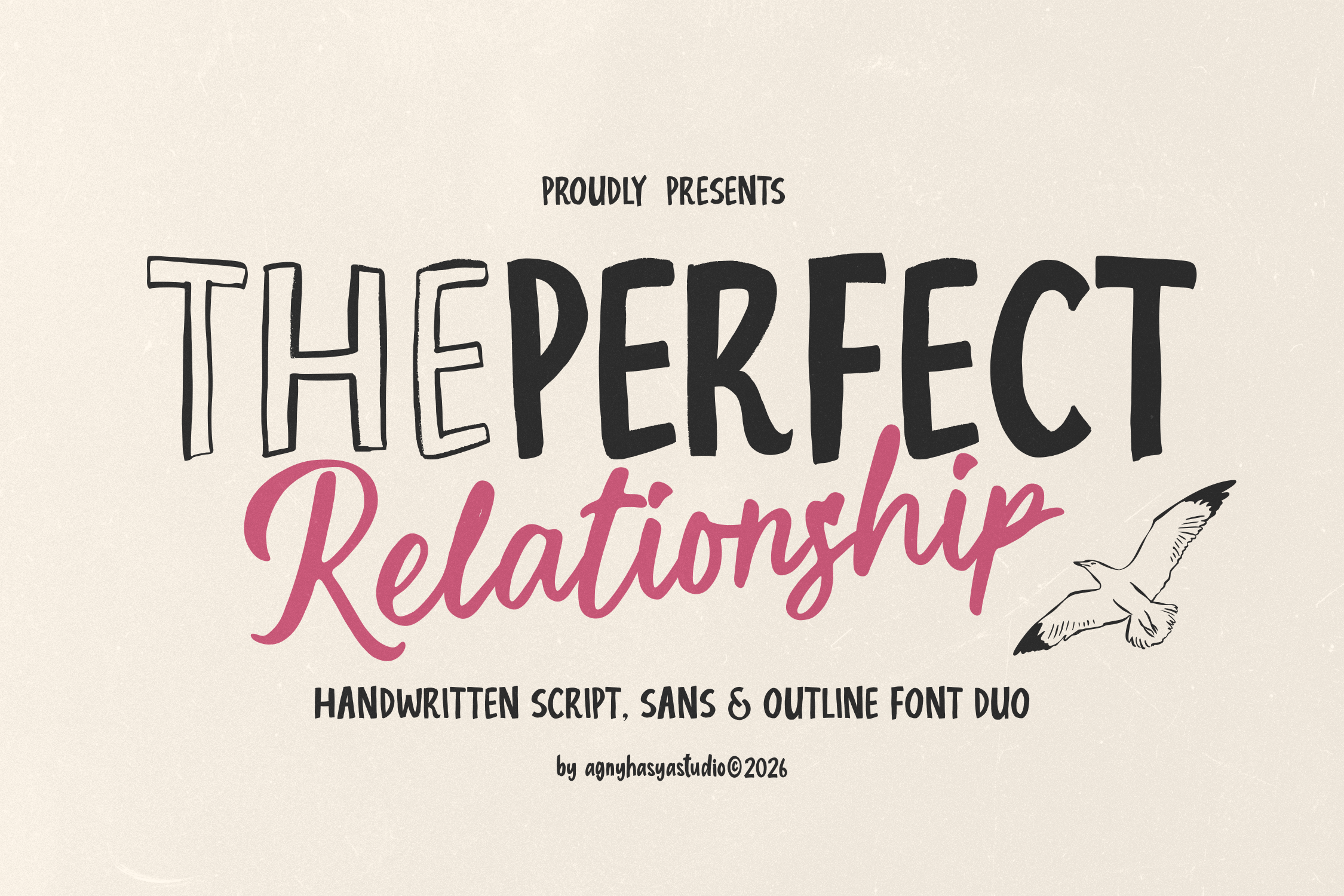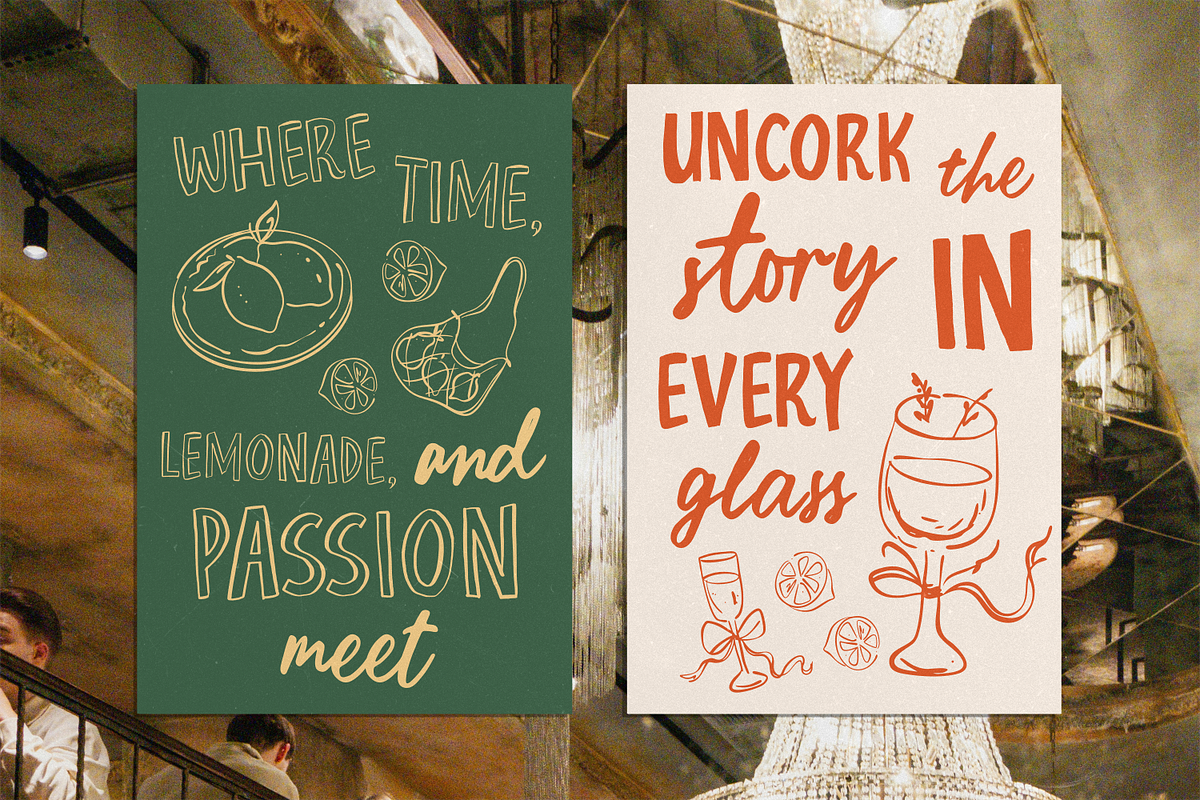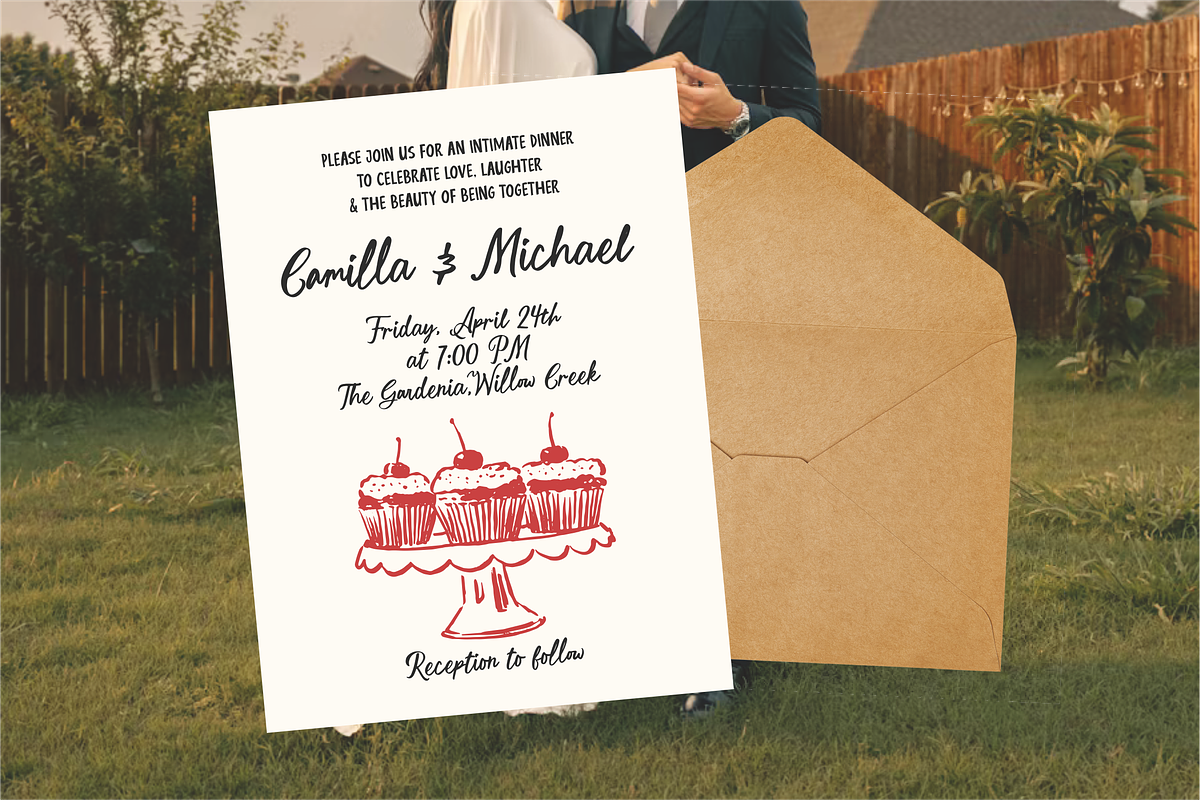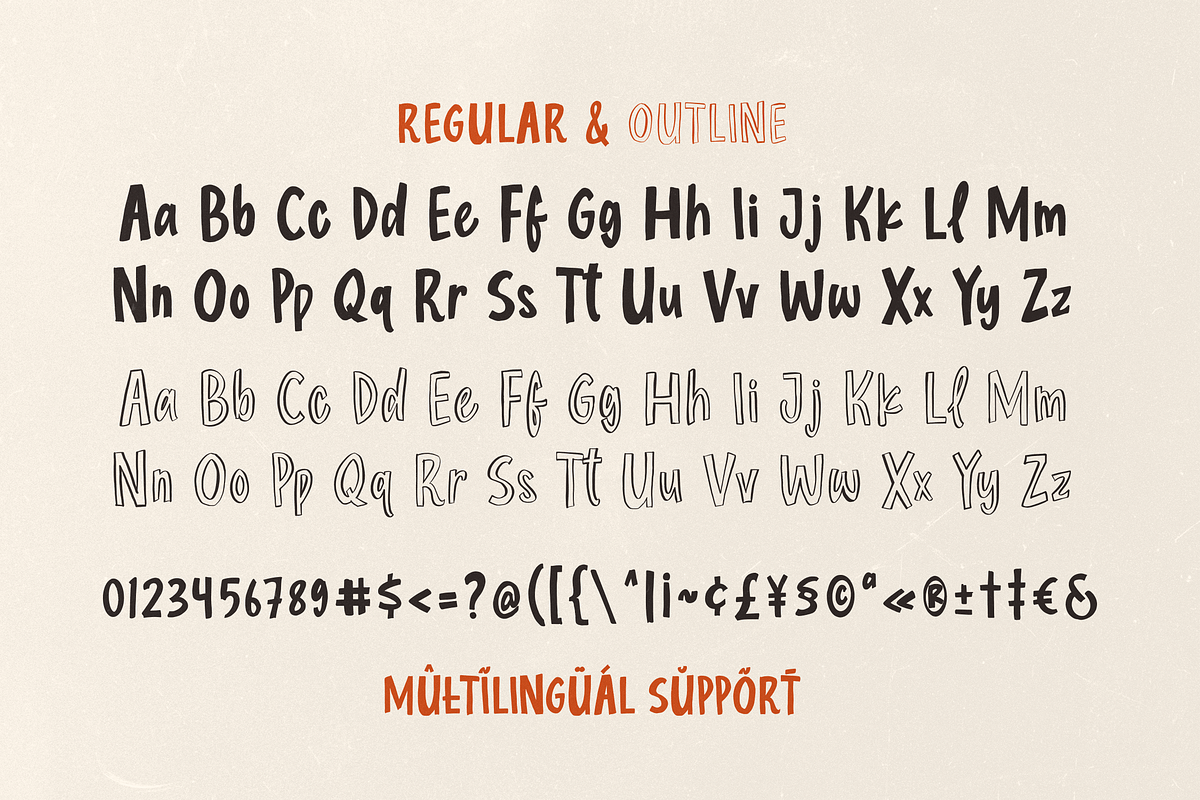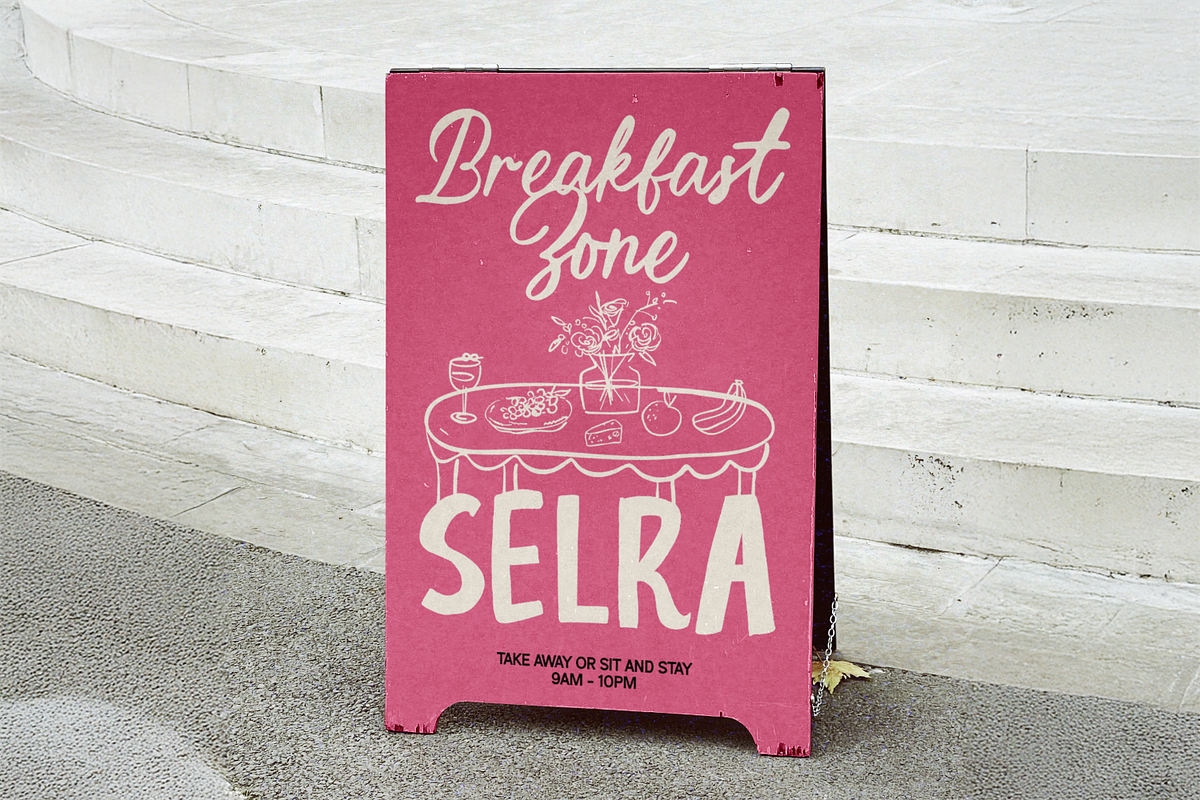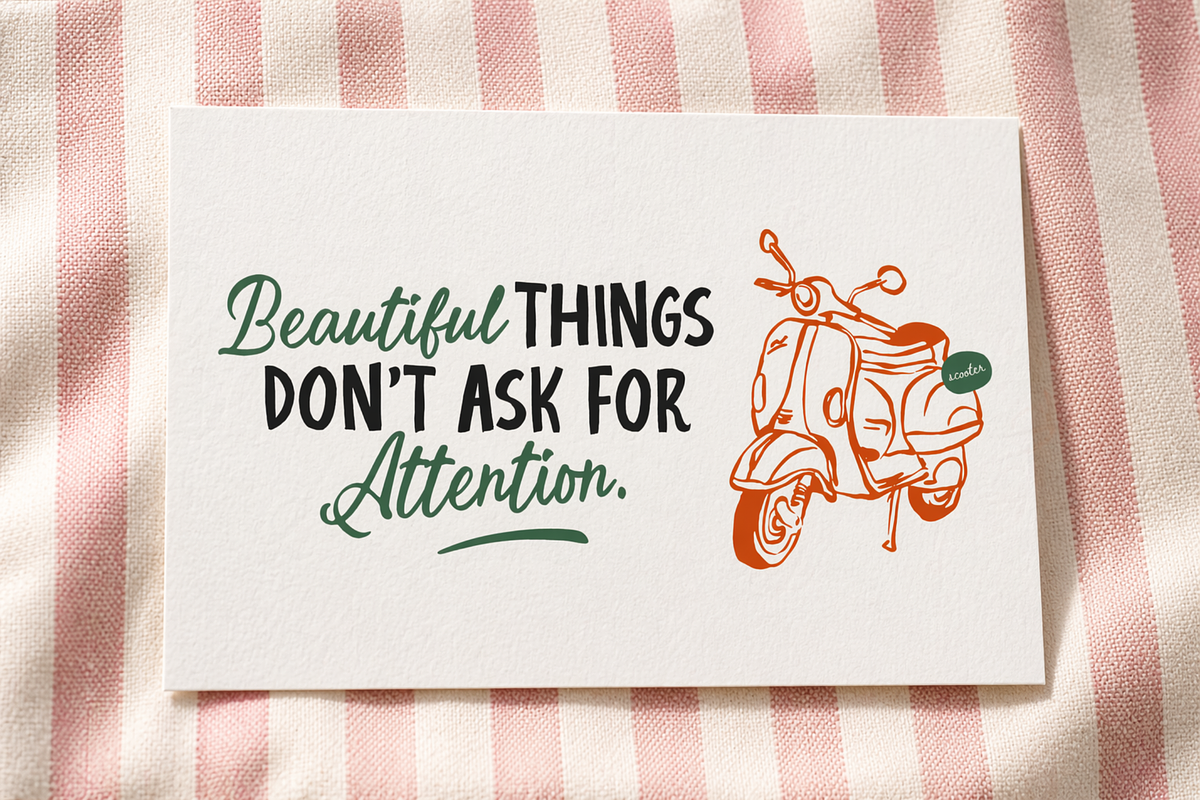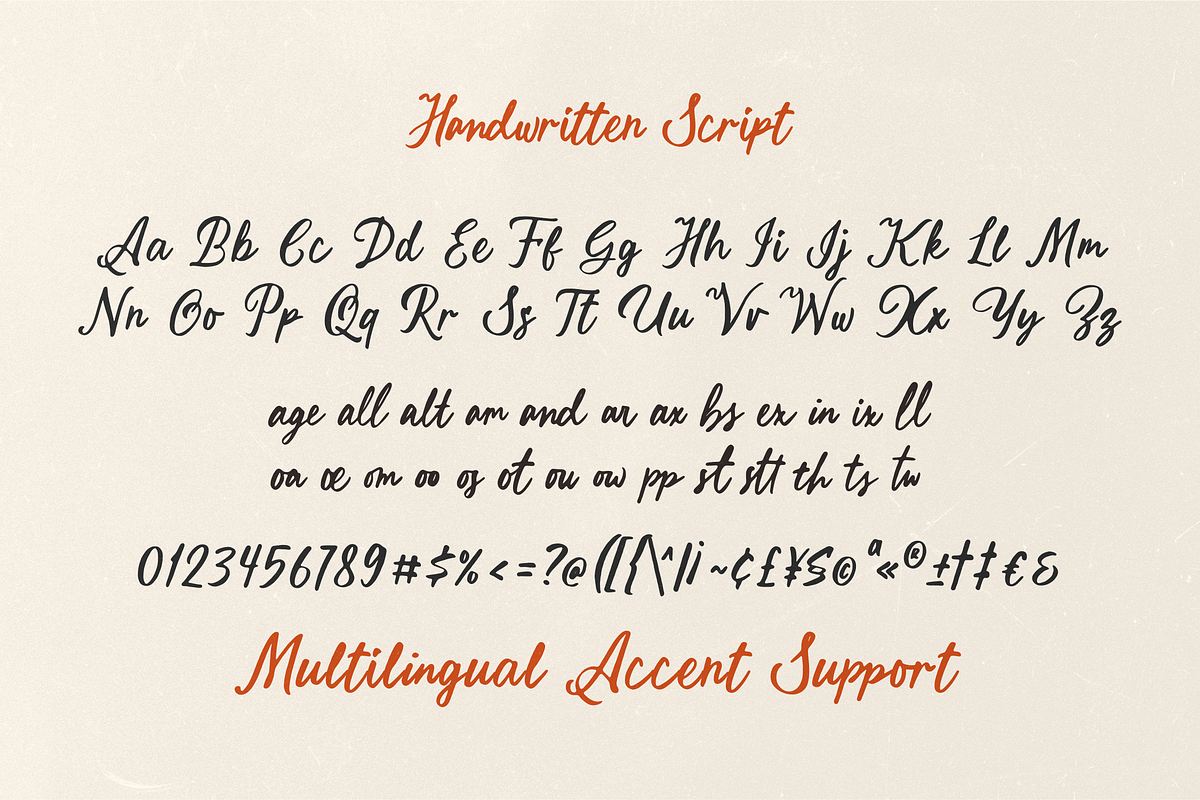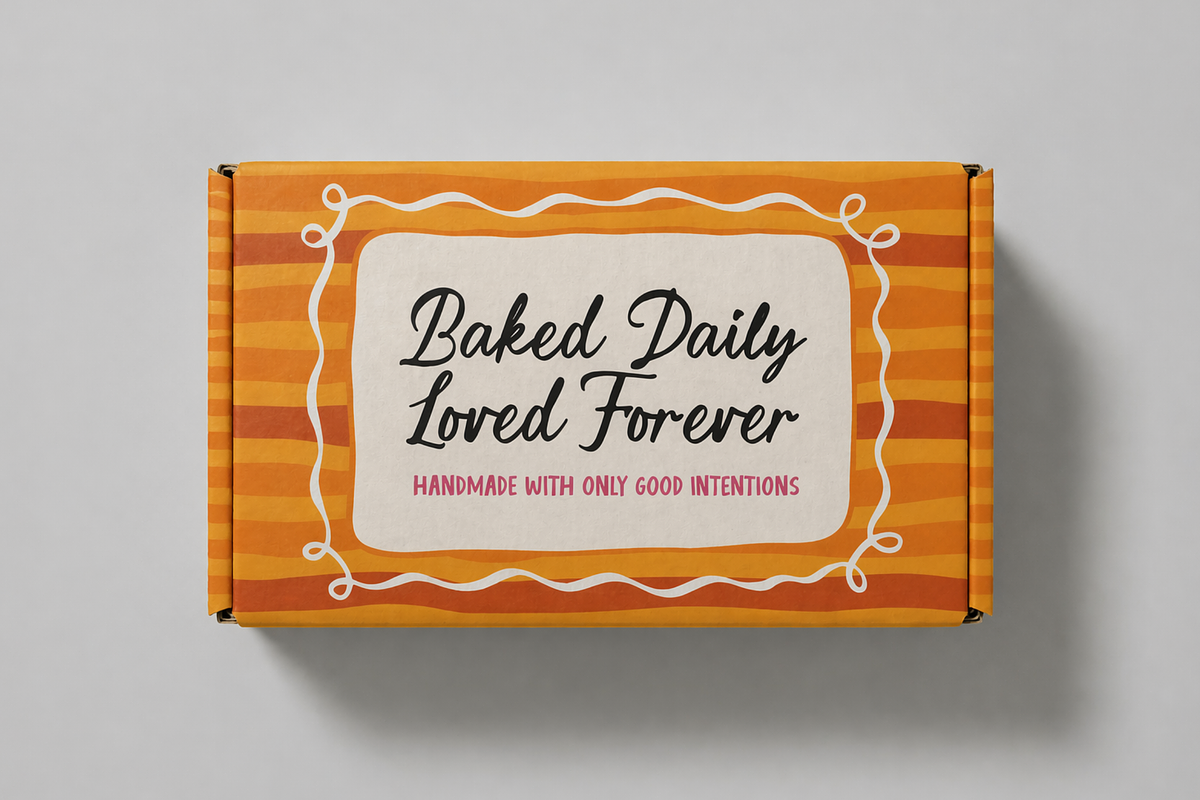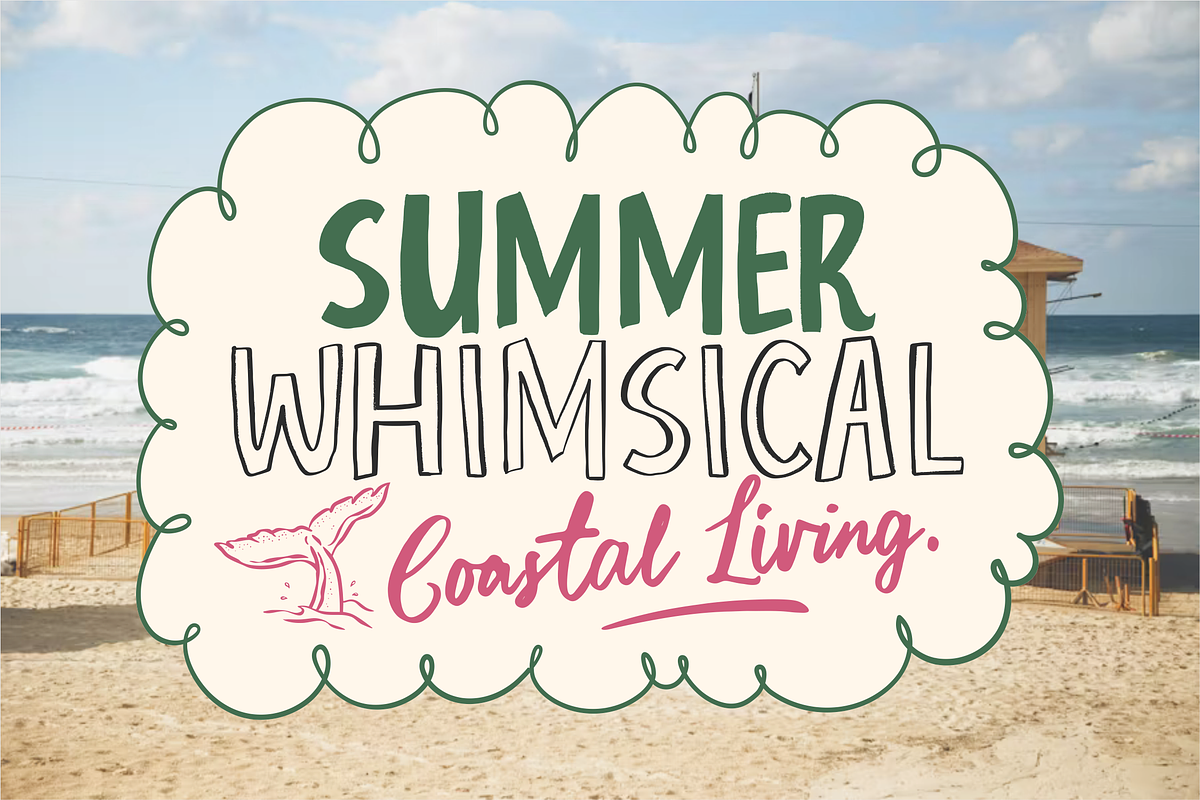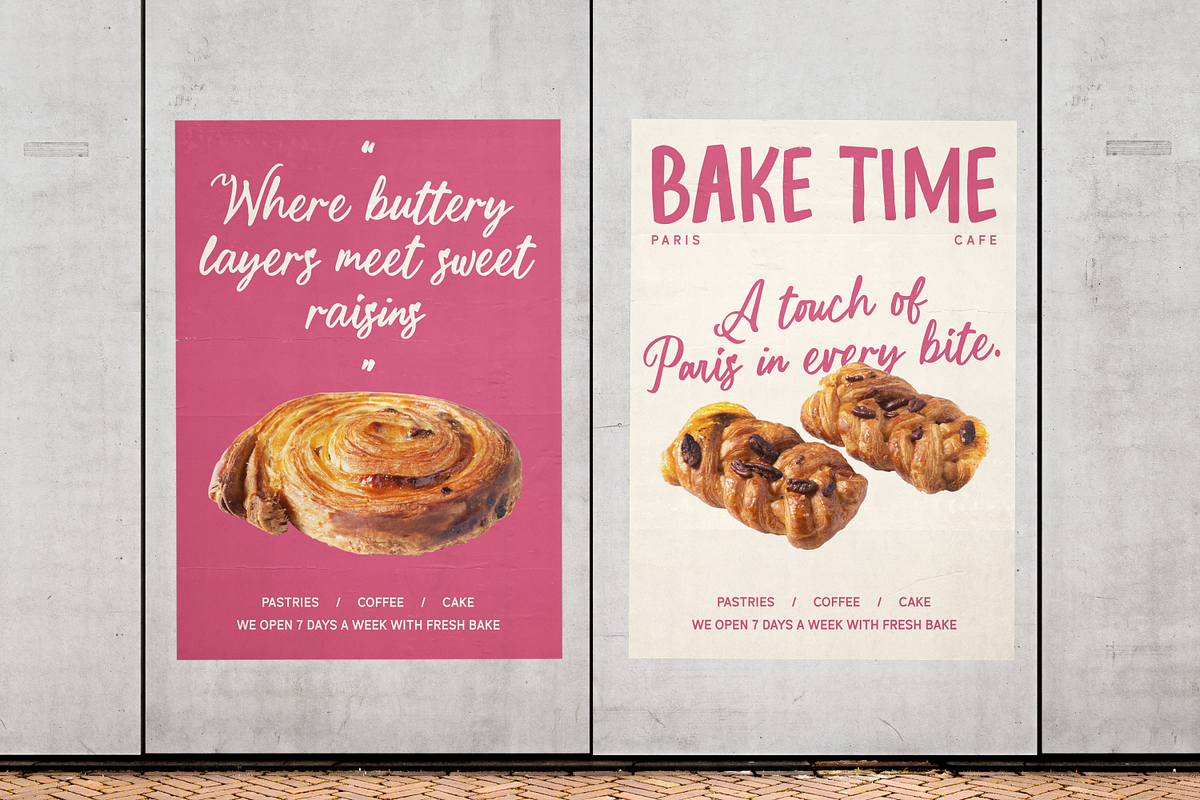
Perfect Relationship - Font Duo
Looking for a font that feels warm, personal, and effortlessly charming?
Perfect Relationship is a delightful handwritten font duo designed to bring a natural, playful touch to your designs.
This font combines a smooth handwritten script with a clean yet quirky sans serif, plus an outline version to give you extra creative flexibility. The imperfect strokes and organic shapes create a truly human-made feel, perfect for modern lifestyle branding.
Whether you're designing for:
- wedding invitations
- café menus
- bakery packaging
- social media quotes
- lifestyle branding
- feminine design
This font adapts beautifully across styles.
With its versatile font pairing, you can easily mix and match:
- elegant script for headlines
- bold sans for readability
- outline style for playful accents
The result? A cohesive, eye-catching design system that feels both professional and personal.